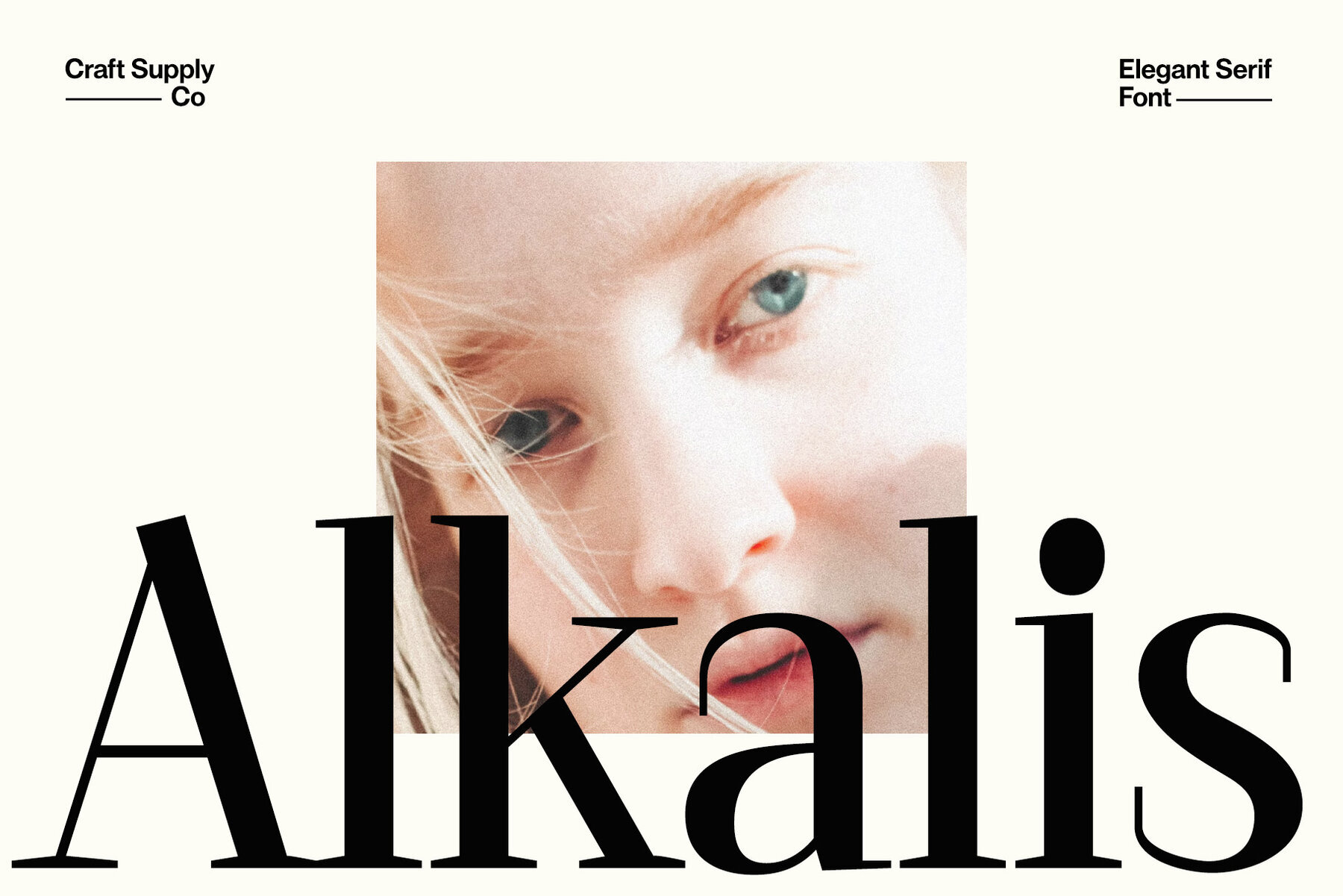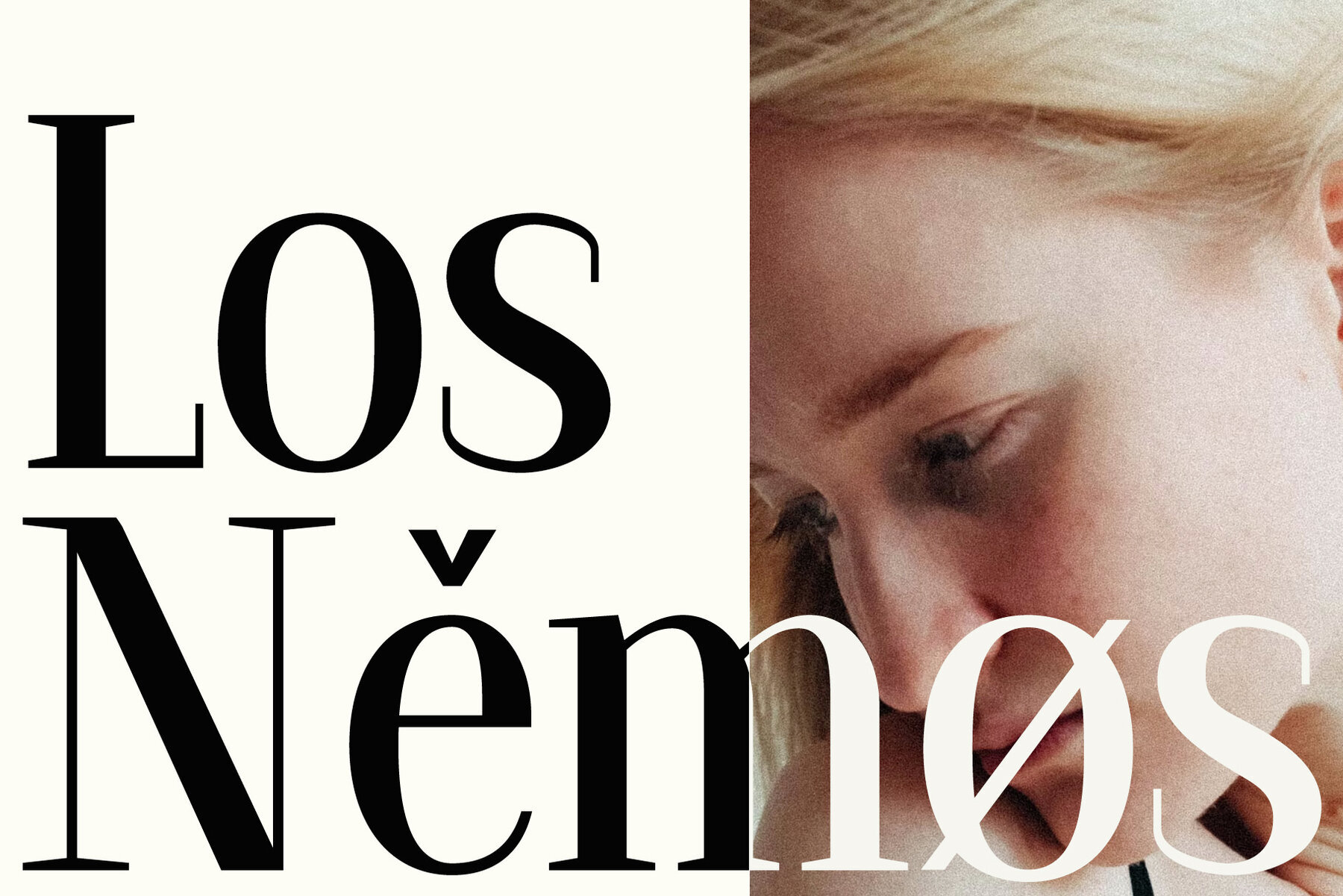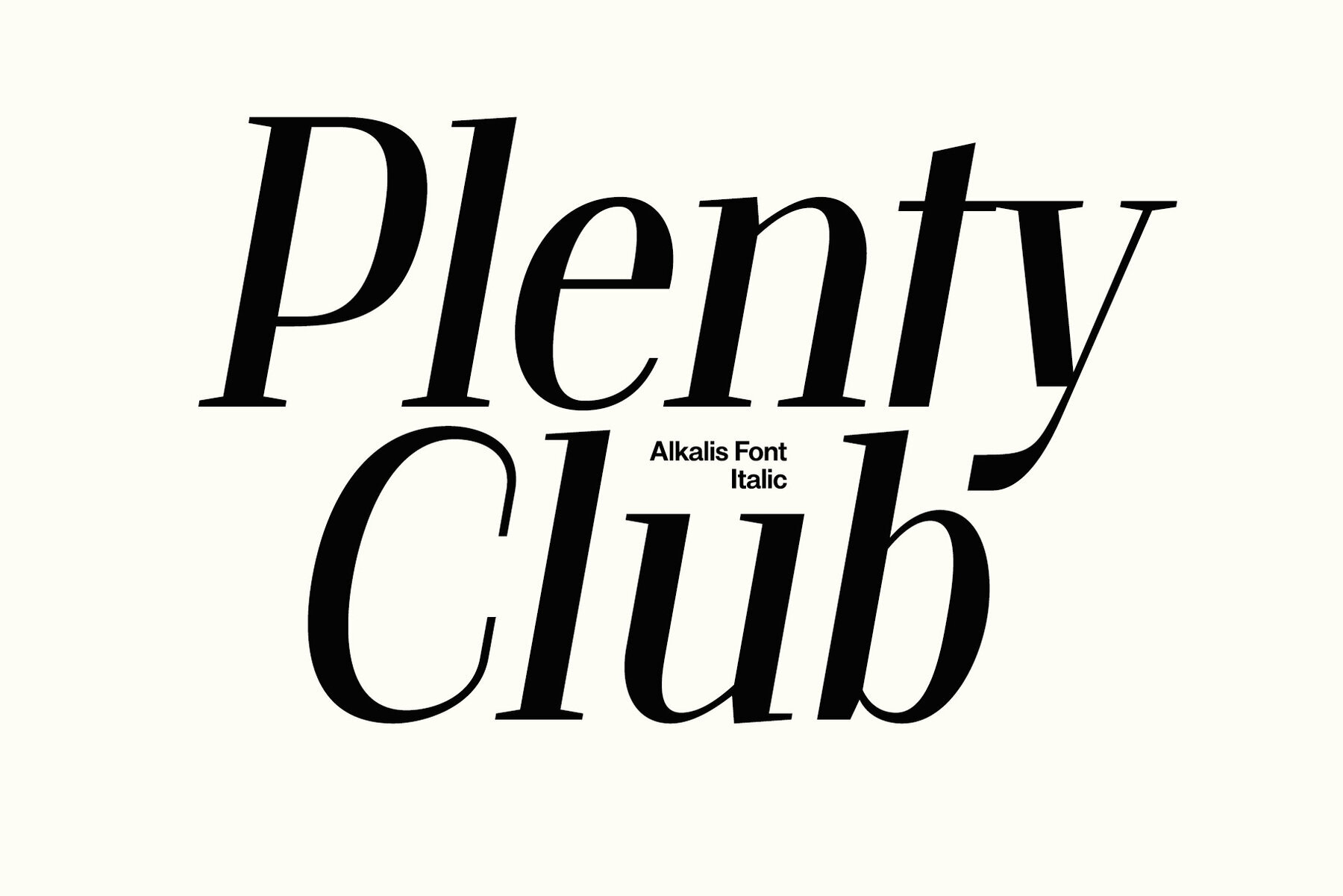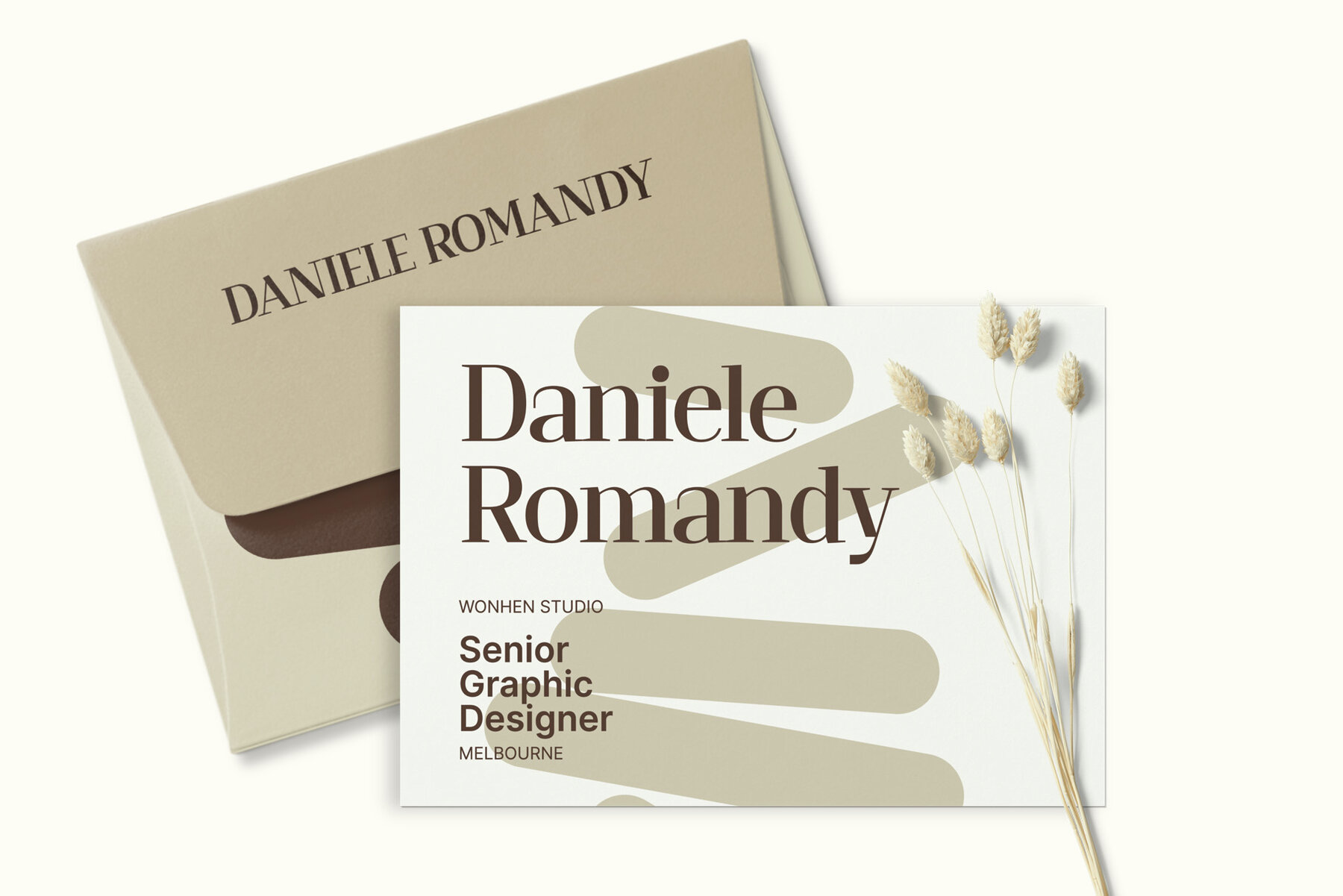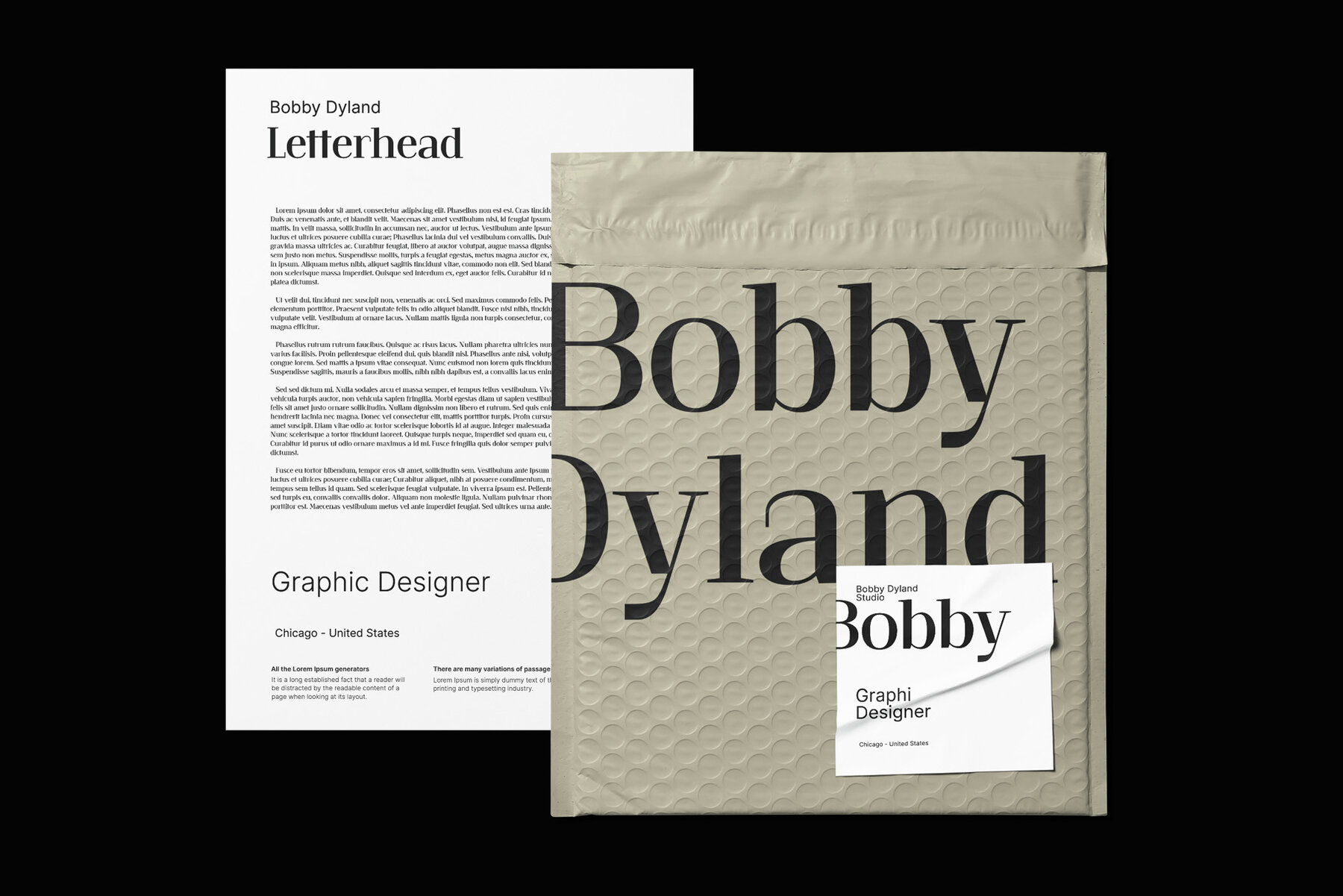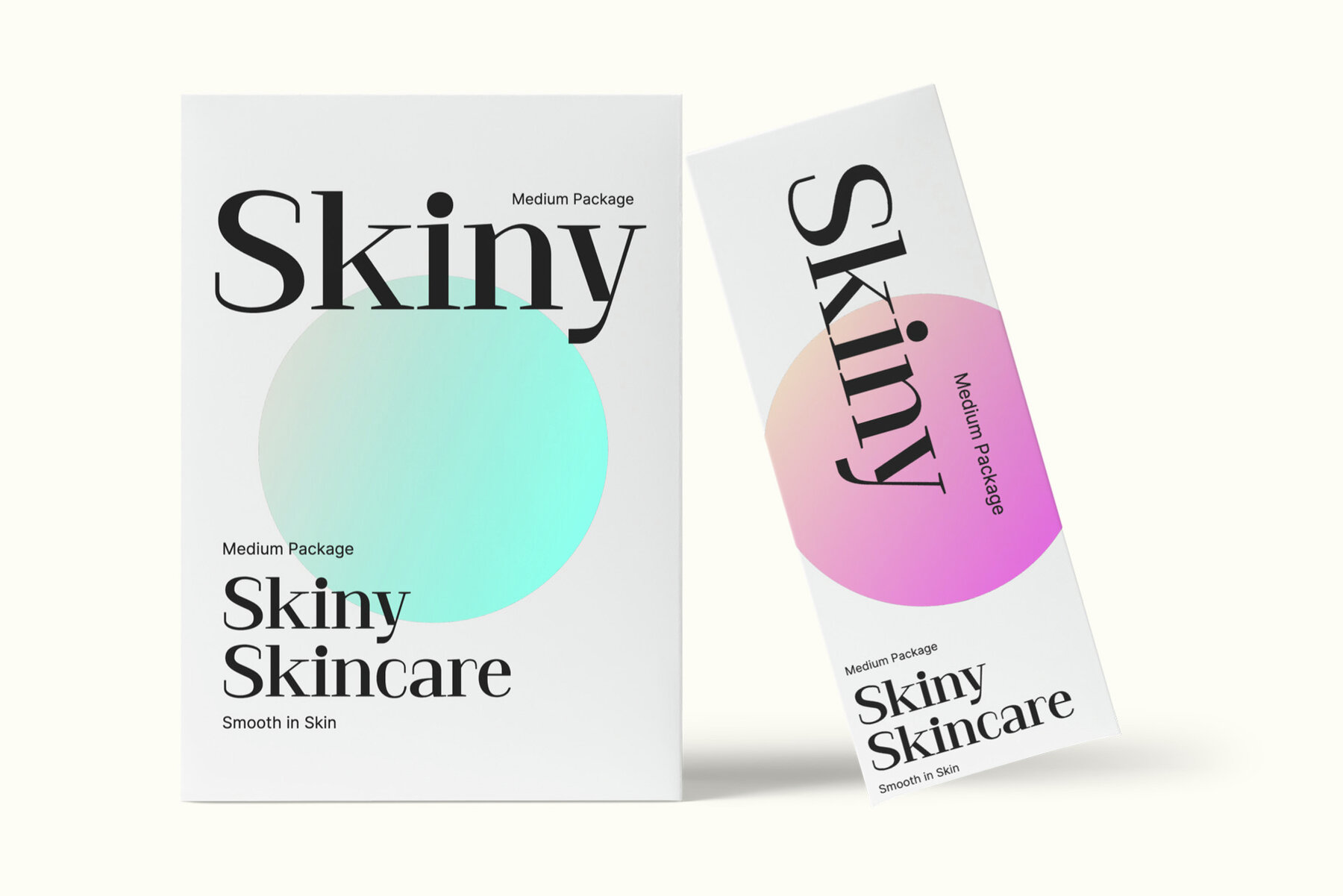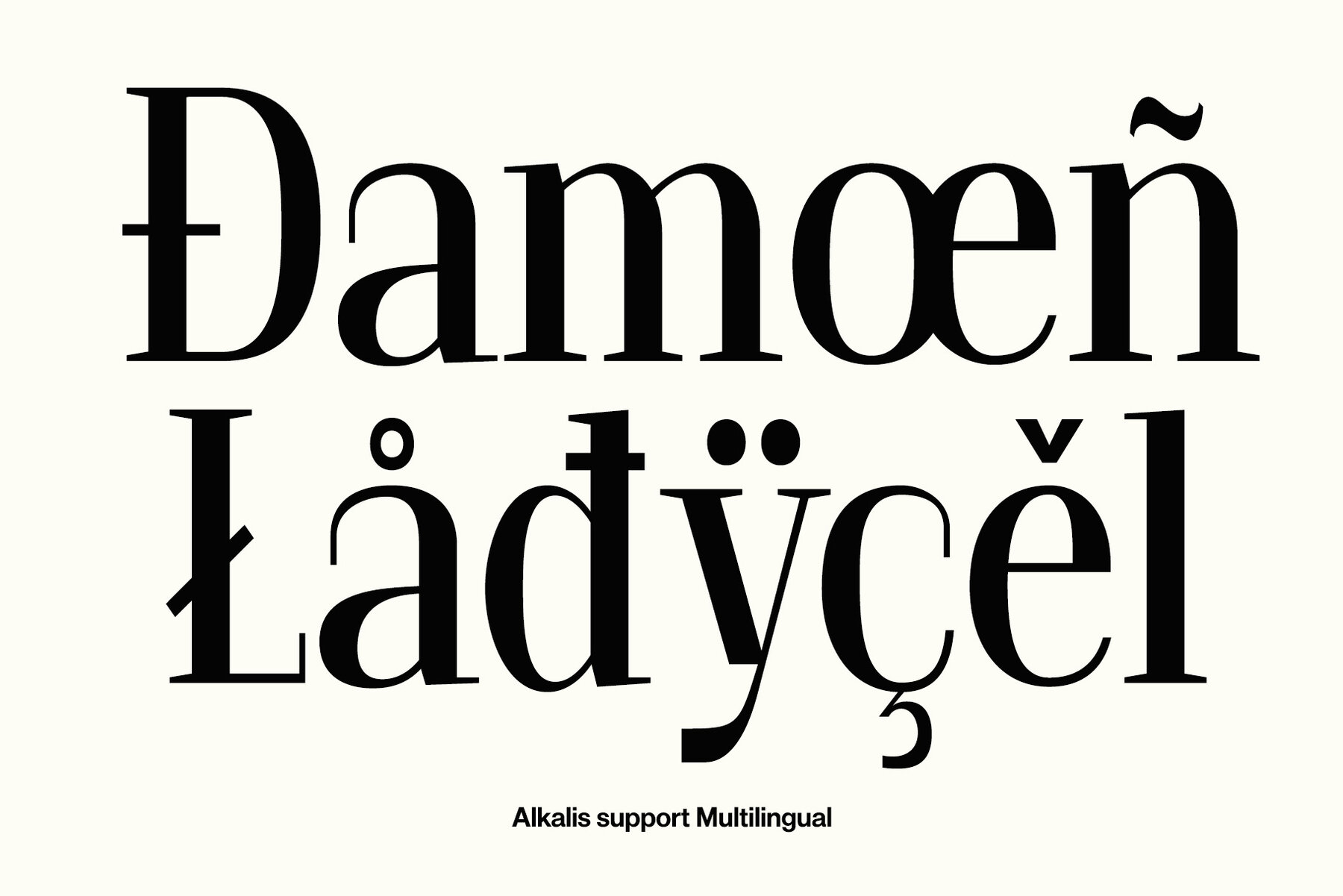
Alkalis Font
Meet Alkalis – a modern elegant serif where contemporary style meets timeless design. Crafted to meet both text and display needs, Alkalis offers a touch of elegance and versatility for any project. Alkalis provides an ideal balance in font design, offering contrast that is neither too sharp nor too soft. This perfect balance makes it suitable for a variety of uses, fitting seamlessly in body text and headers alike. Distinguished by its elegant, modern serifs, Alkalis transitions smoothly from text to display. It brings sophistication to your content and is equally at home in both print and digital formats.Alkalis by Craft Supply Co.: Modernity Meets Elegance
Balanced Contrast
Elegant Versatility